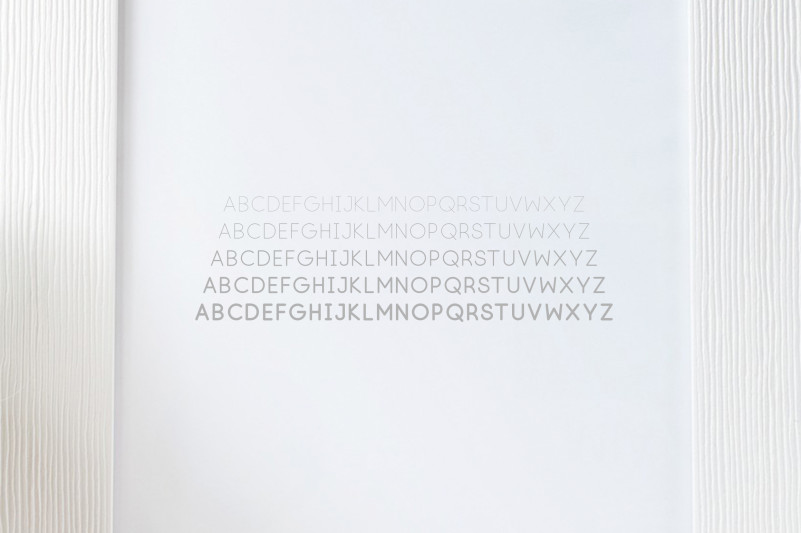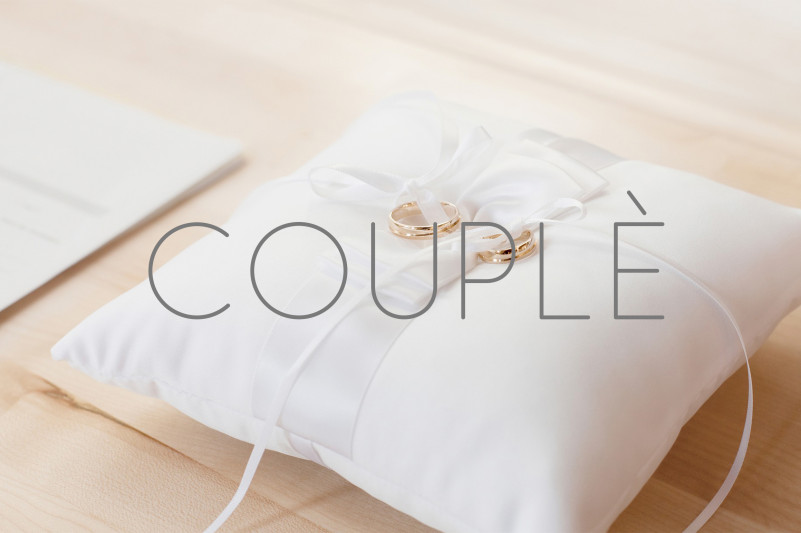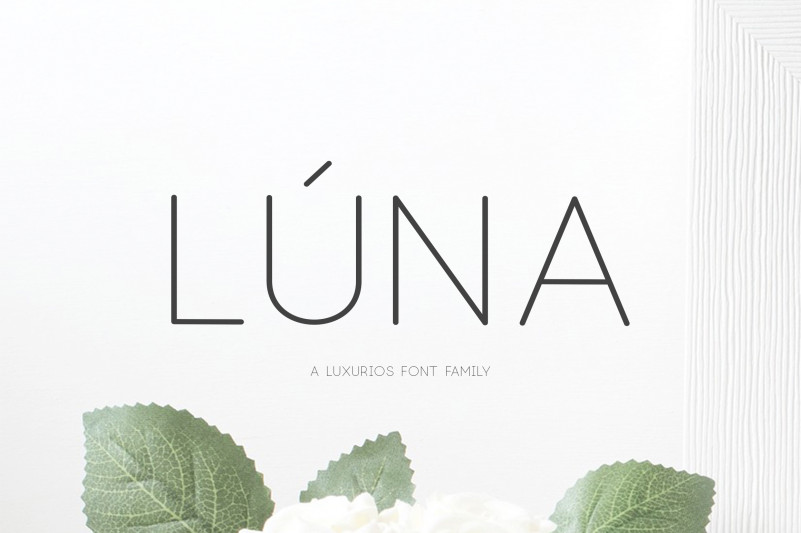
Lúna Font
Luna is a stunning sans serif font, with perfect weight and style. This is perfectly suited to modern and contemporary designs, and adds such a clean and stunning appeal.